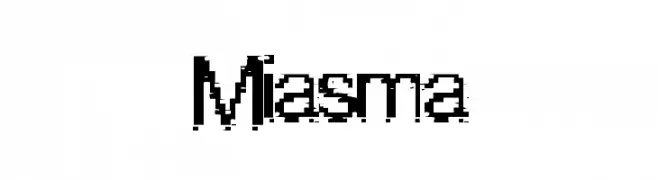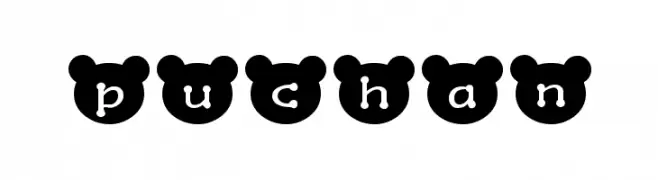
A geometric, Art Deco-inspired font with bold shapes and high contrast.
A bold, sketchy font with a raw, energetic vibe.
A bold, angular font with a three-dimensional effect, perfect for modern and edgy designs.
A modern sans-serif font with a digital glitch effect, perfect for tech-inspired designs.
A playful, bold font with rounded edges and a bubbly appearance.